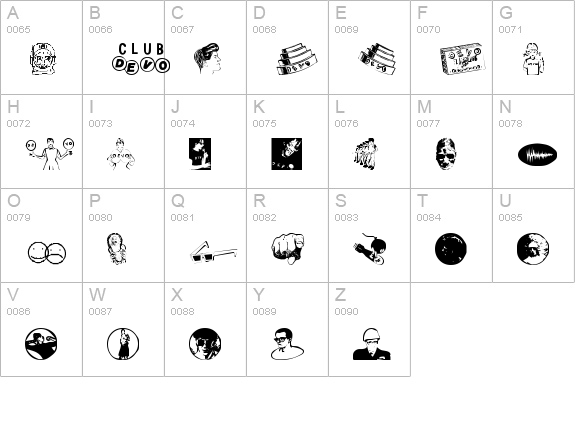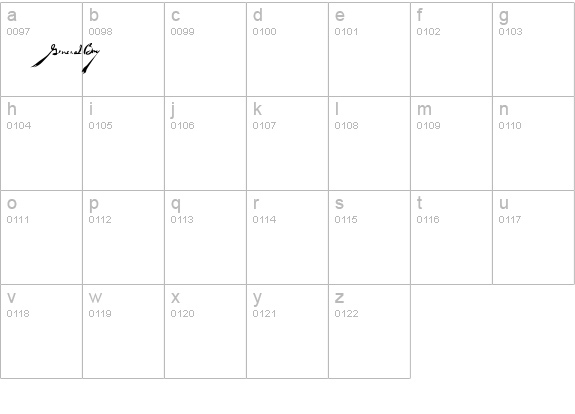
DEVO Dingbats 1.3 Font Details
DEVO Dingbats 1.3 font is a whimsical and playful typeface that is perfect for adding a touch of fun to your design projects. This font features a collection of quirky and unique dingbat characters that can be used to enhance your graphics, posters, invitations, and more. With its bold and eye-catching appearance, DEVO Dingbats 1.3 font is sure to make a statement and grab the attention of your audience. The best part is that DEVO Dingbats 1.3 font is completely free to download at FontsMarket.com. Whether you're a designer looking to spice up your creations or just someone who loves experimenting with different fonts, this font is a must-have in your collection. Don't miss out on the opportunity to add a touch of charm and creativity to your projects with DEVO Dingbats 1.3 font – download it now for free!